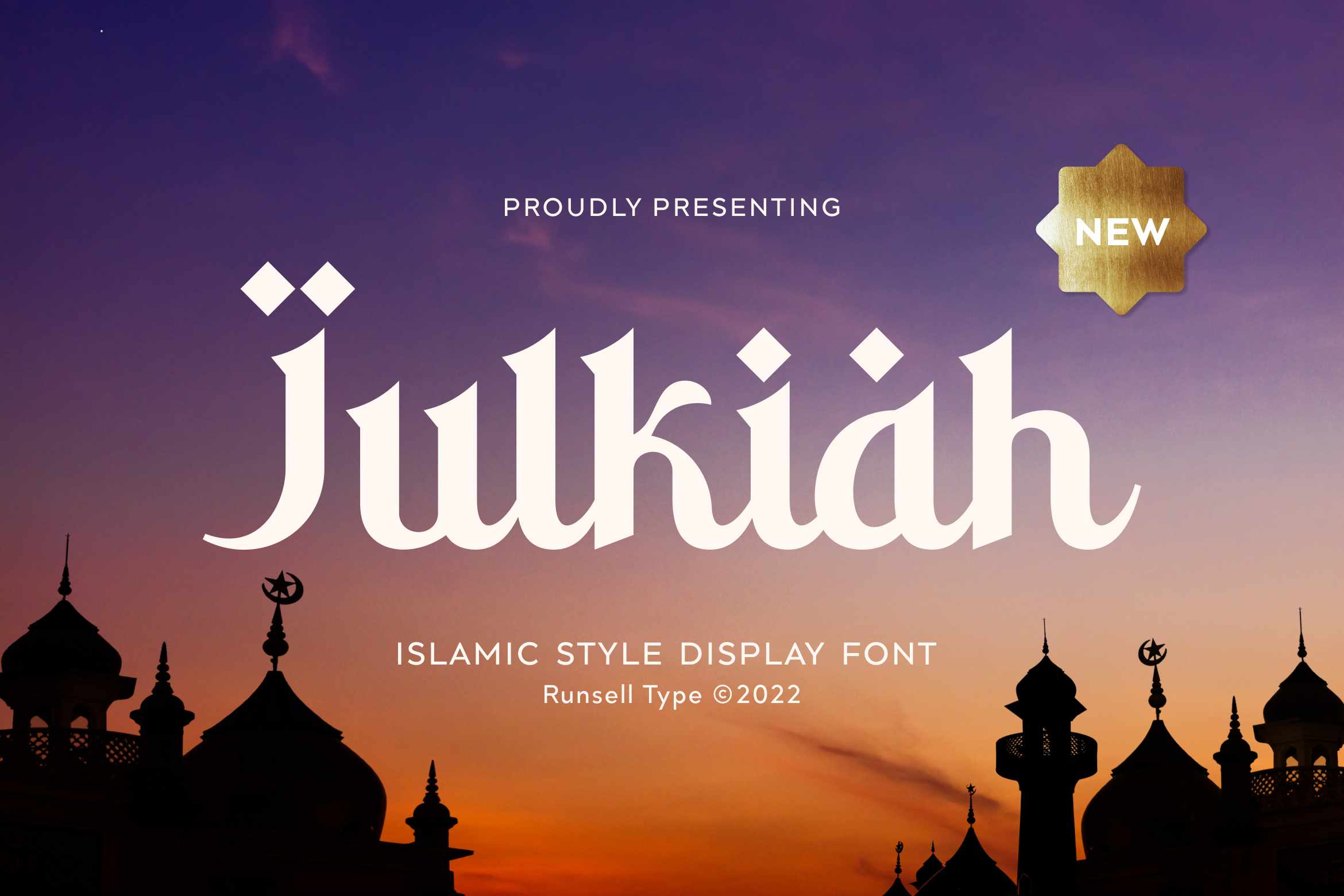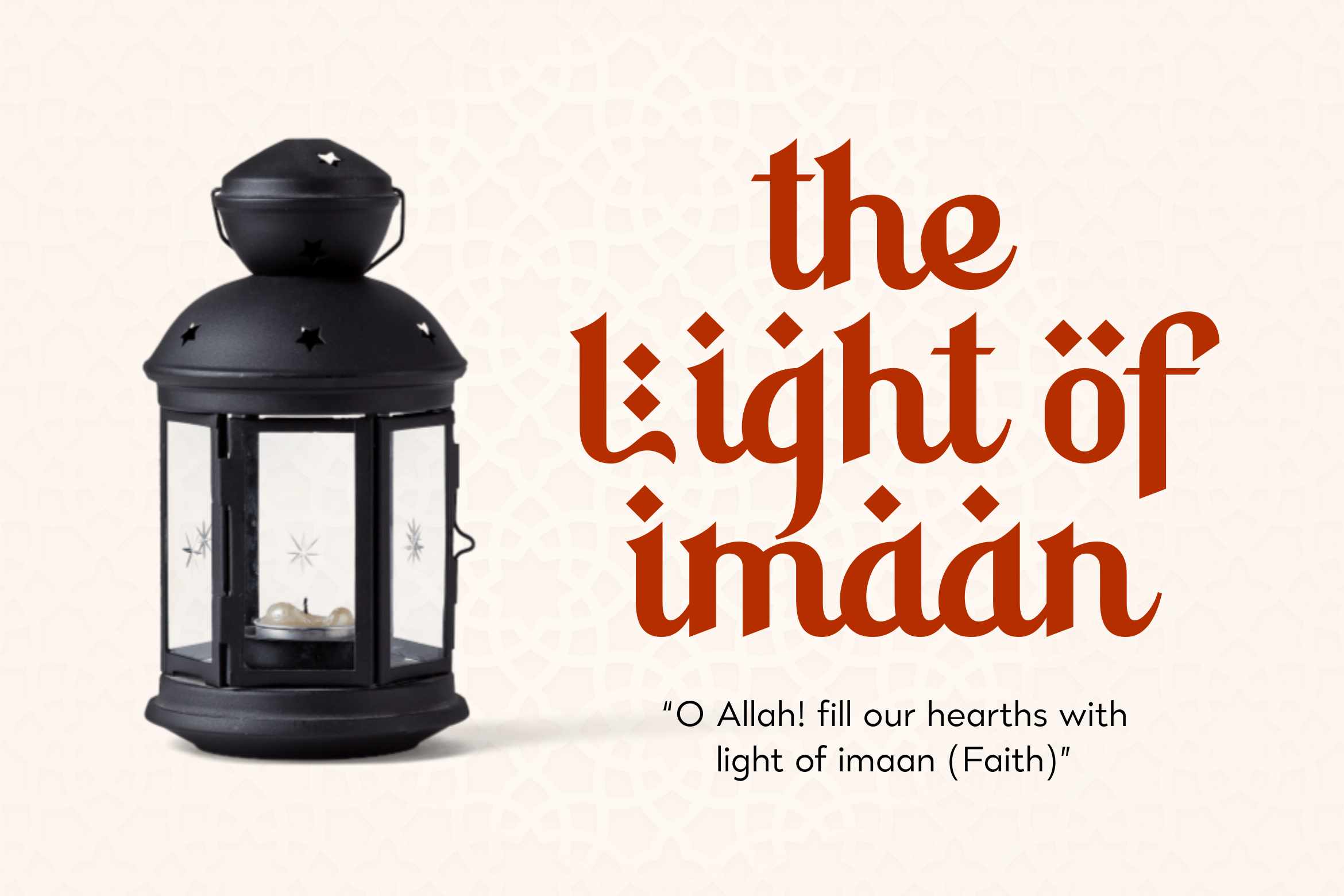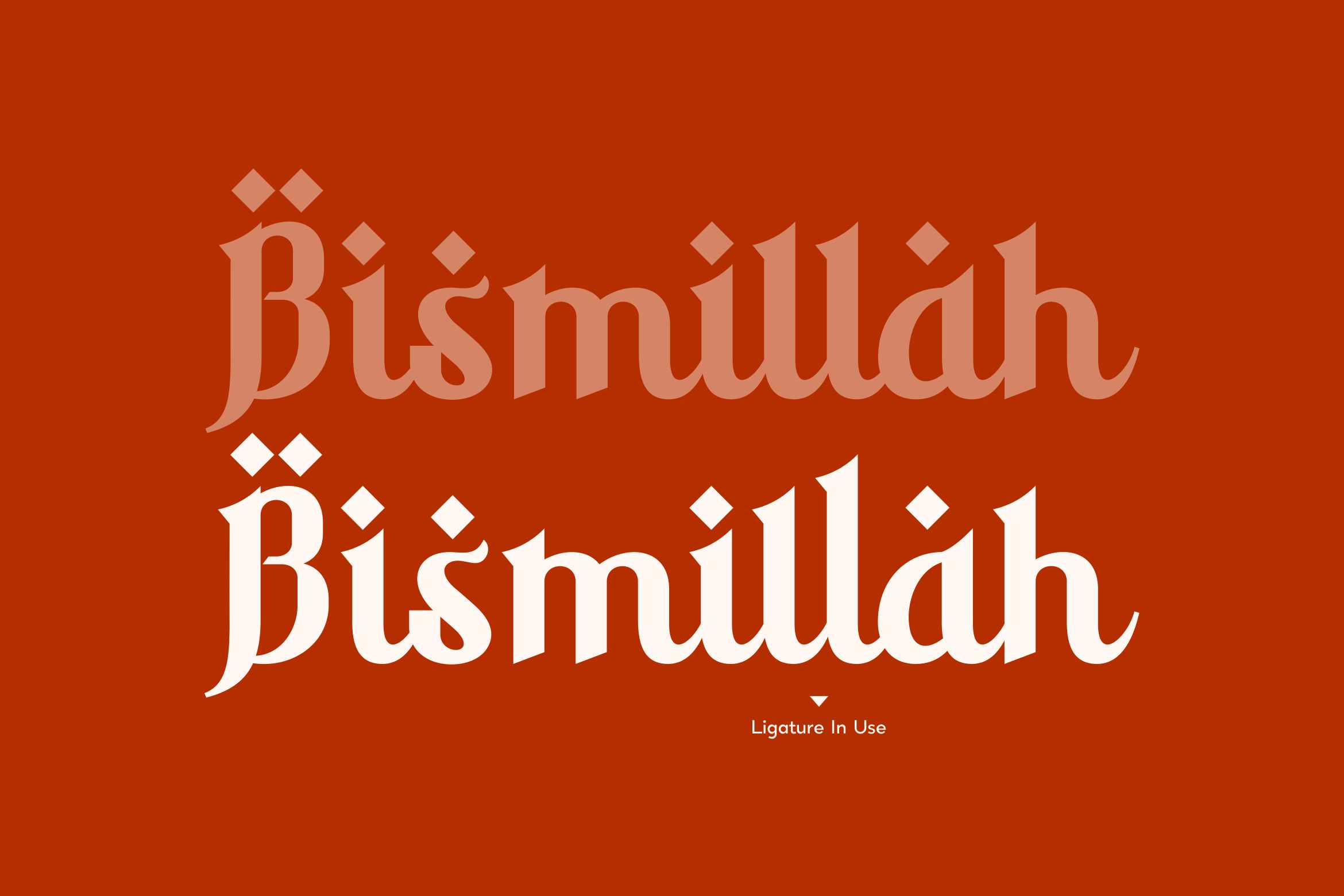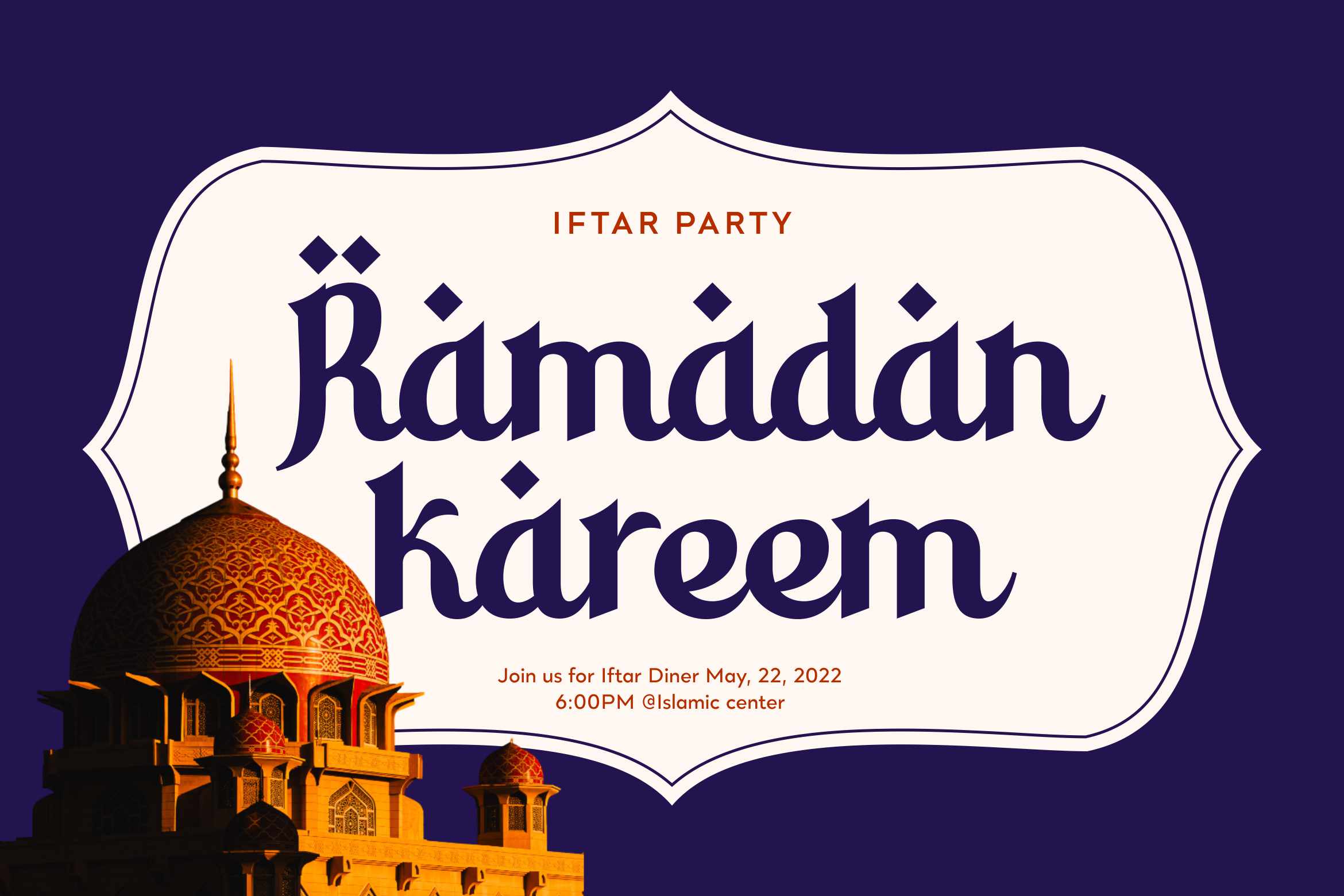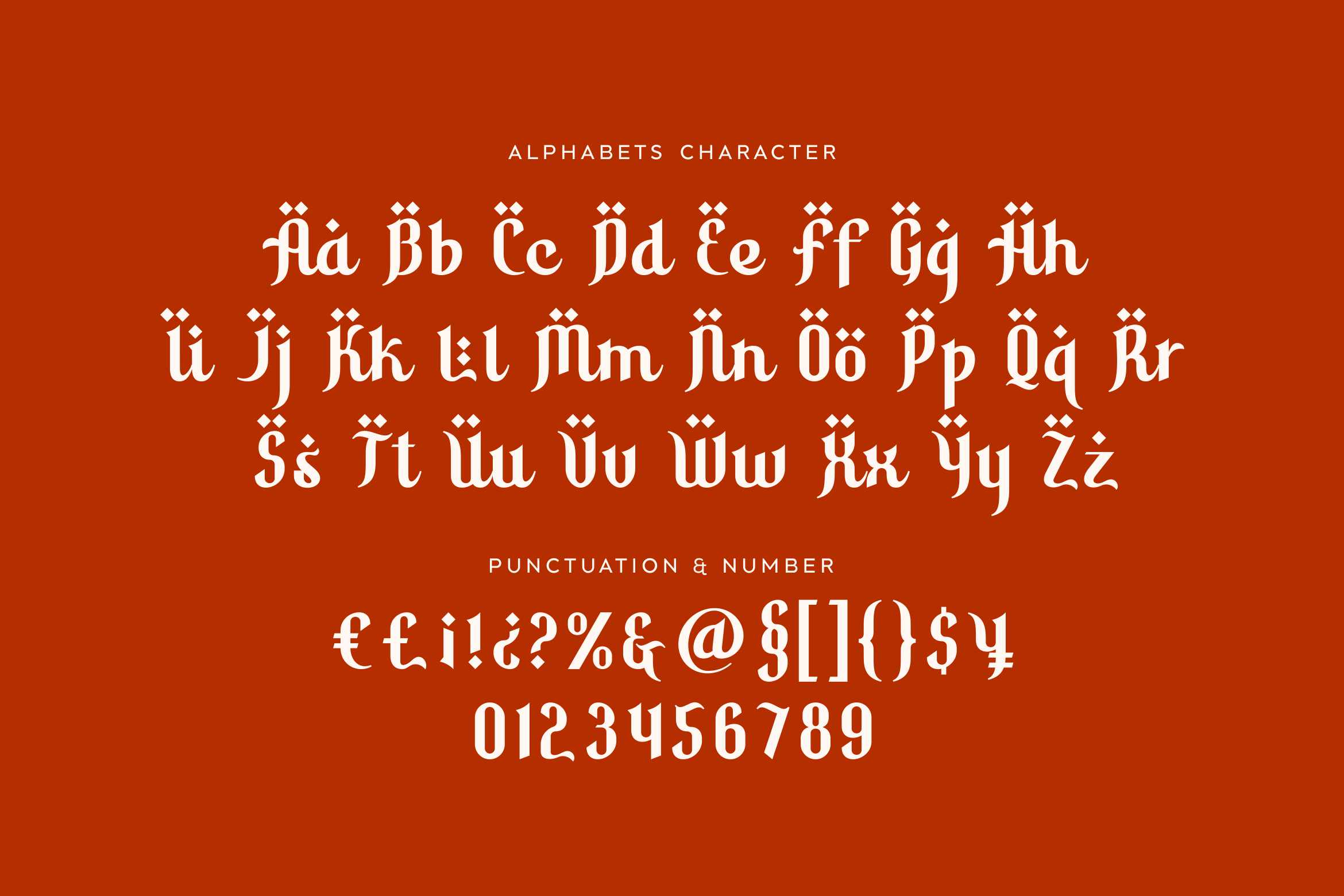
Julkiah is an elegant Islamic-style display font that blends traditional Middle Eastern typographic cues with a sharp, modern serif silhouette. With its high-contrast strokes and distinctive diacritical marks, Julkiah evokes a sense of grace and spirituality, making it ideal for Ramadan campaigns, Islamic literature, ceremonial invitations, or cultural branding. The font’s unique rhythm and clean finish allow it to remain legible while still exuding ornate beauty.
Each glyph in Julkiah carries refined curves and smooth transitions, providing harmony in both uppercase and lowercase forms. Equipped with multilingual support, ligatures, and extended punctuation, this font is designed to honor cultural aesthetics while serving modern design needs. It is a perfect fit for headlines, posters, logos, and greeting cards that require a decorative yet sophisticated Arabic-Latin fusion look.
Julkiah